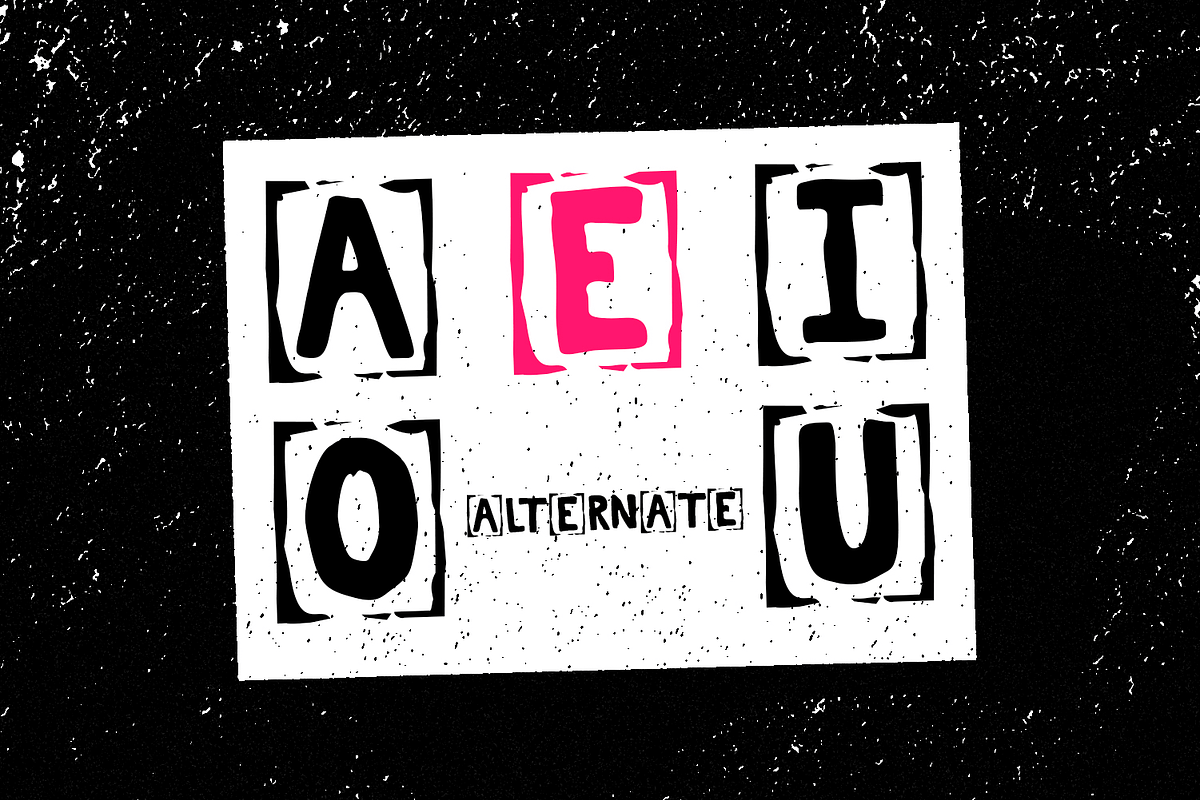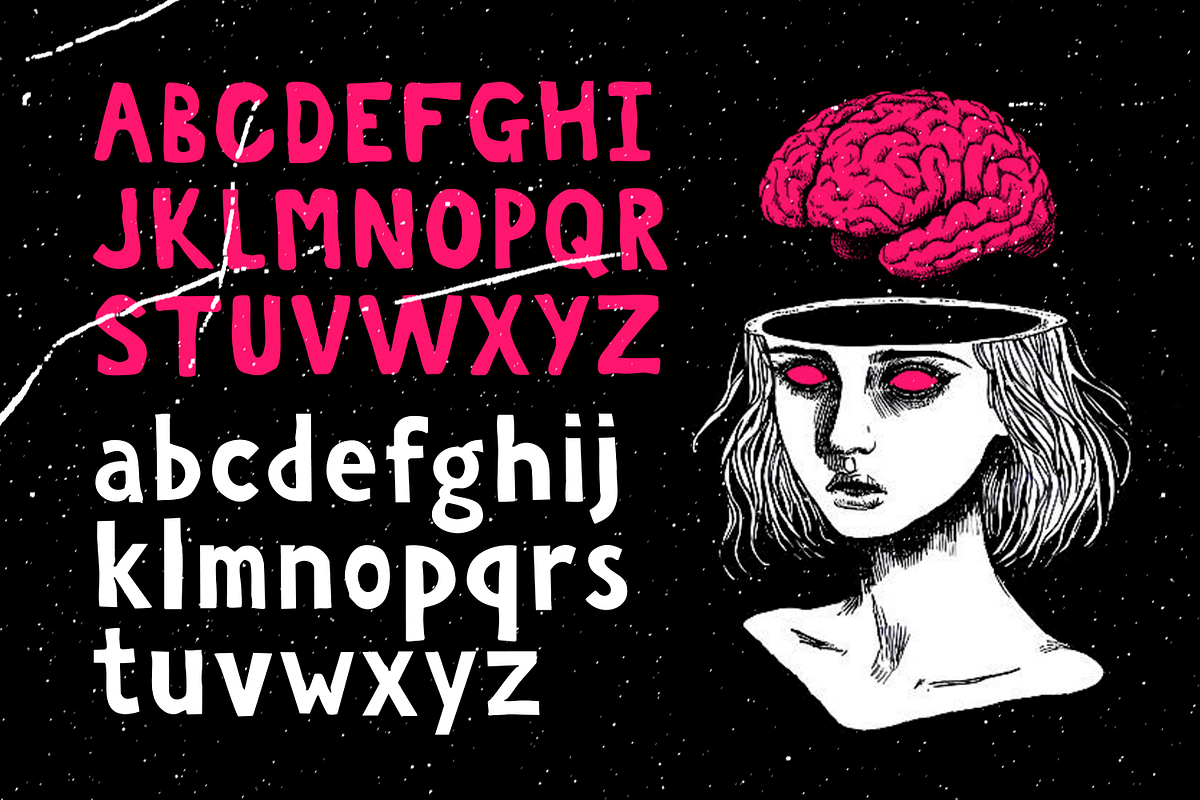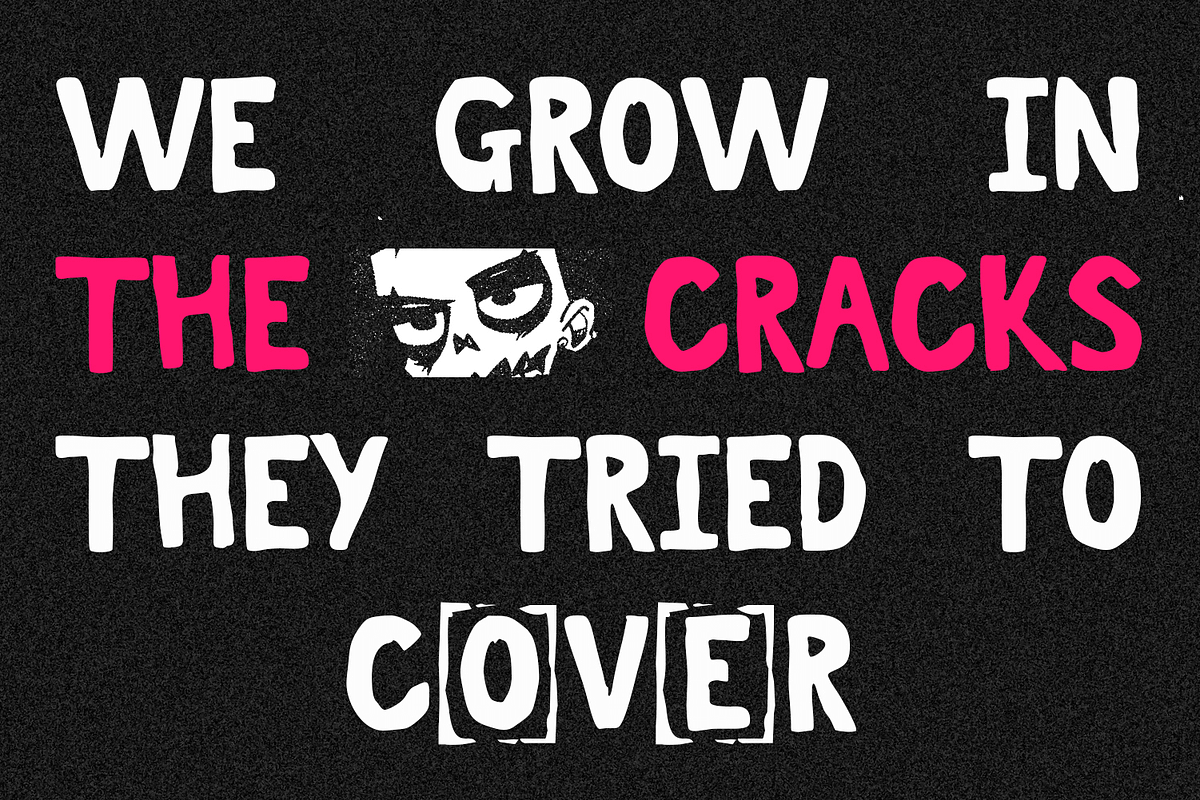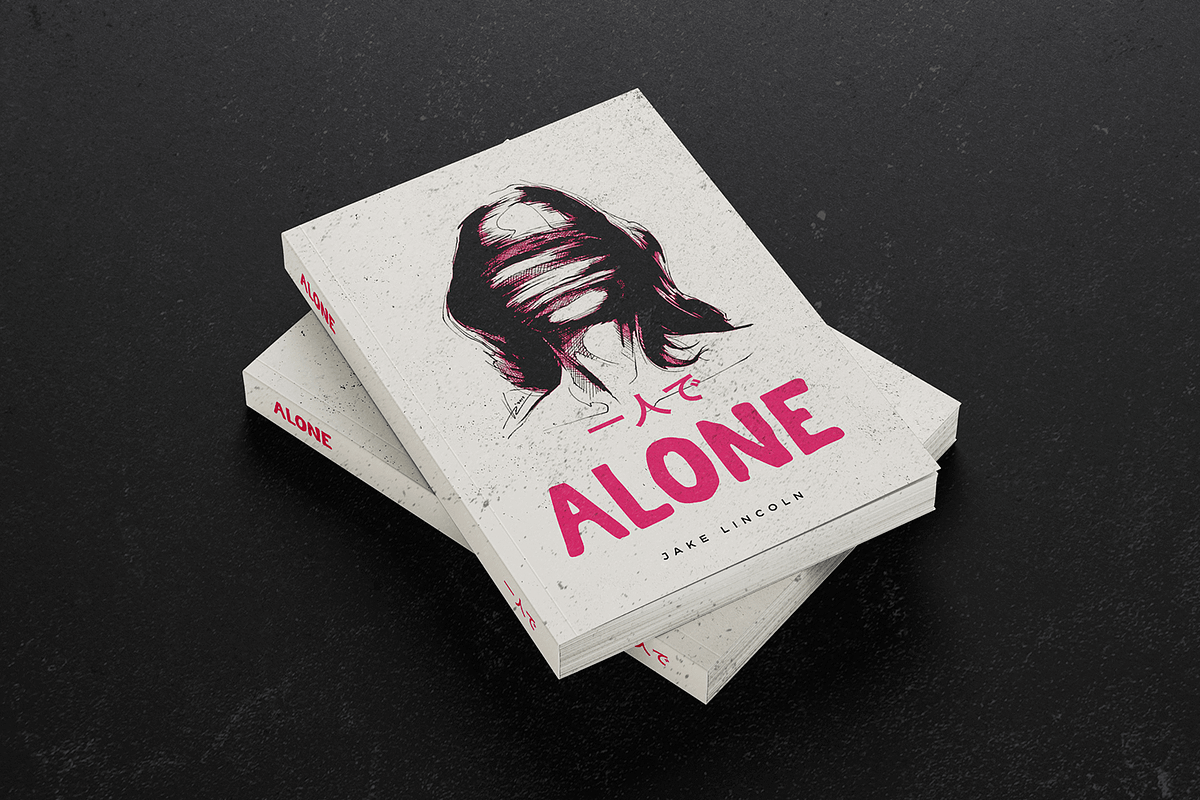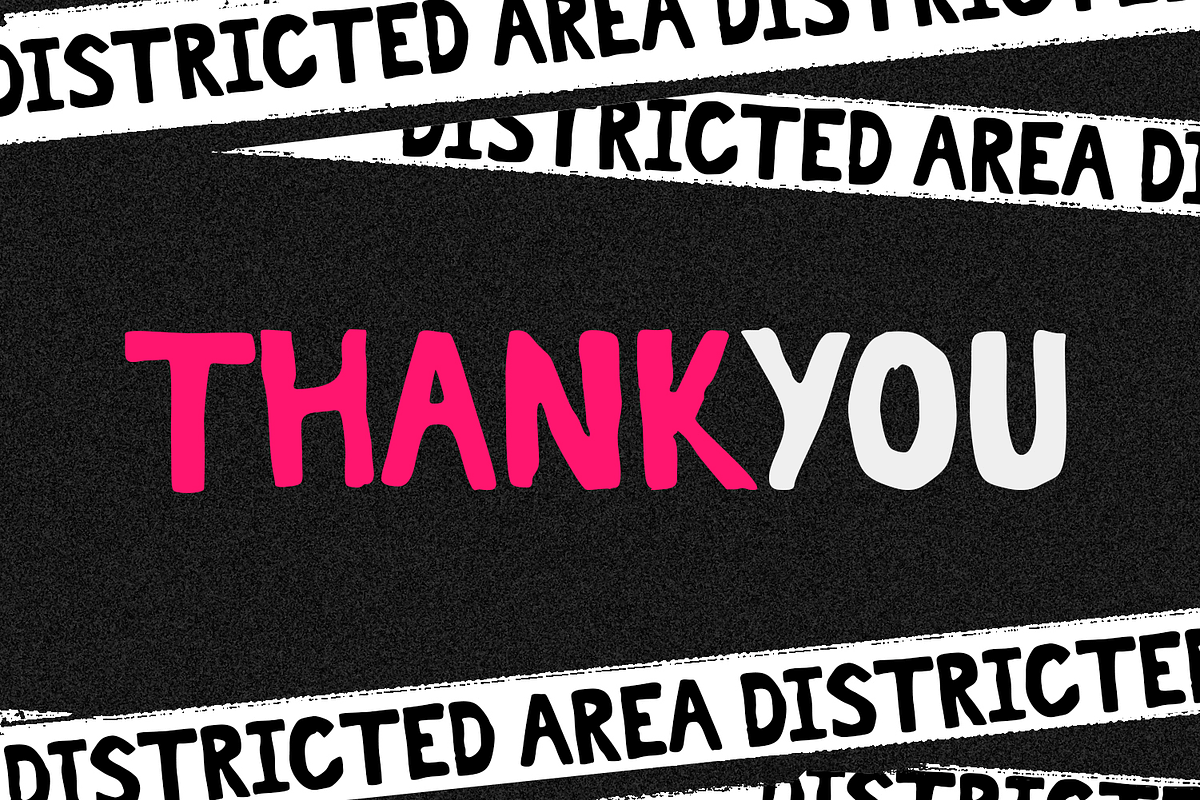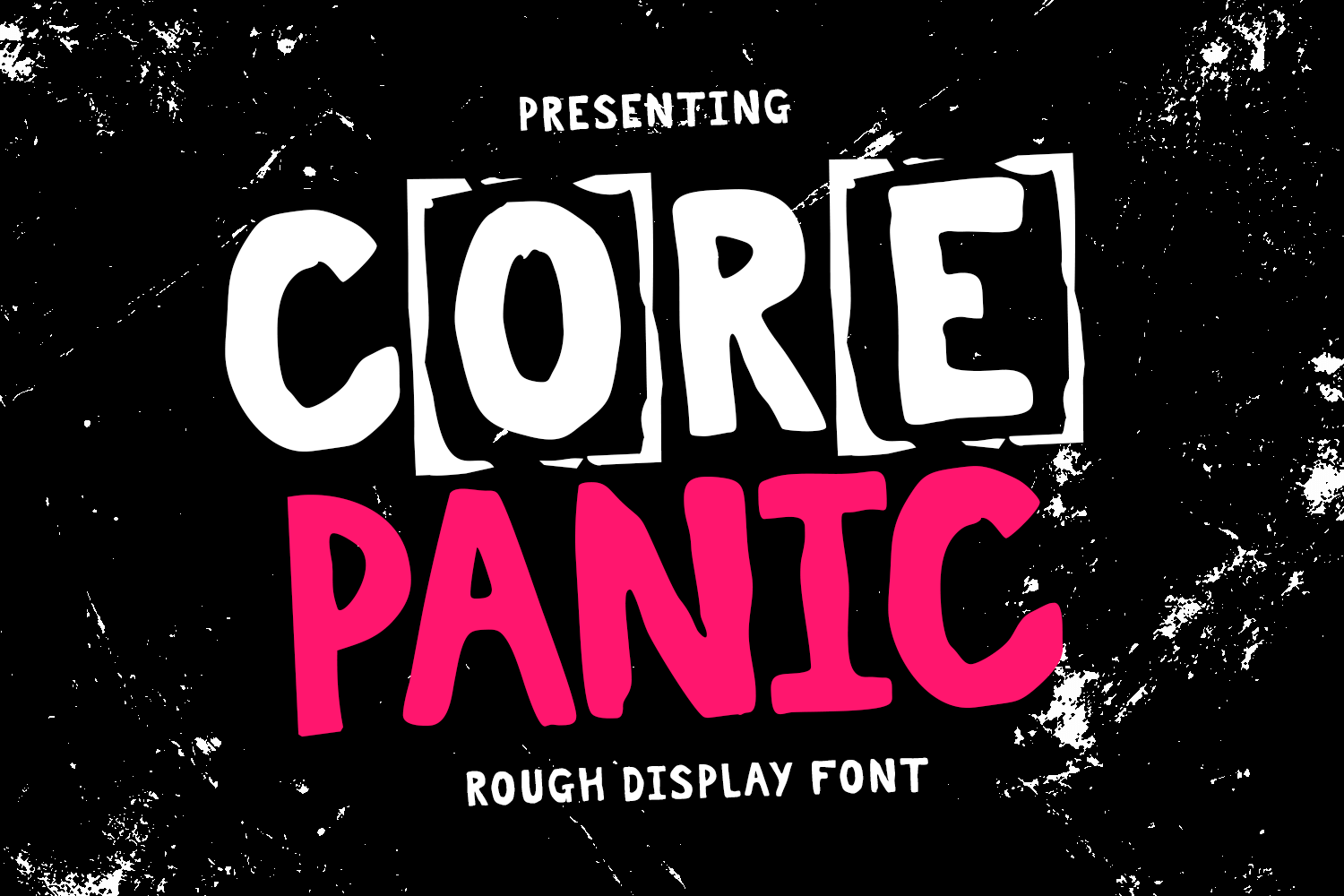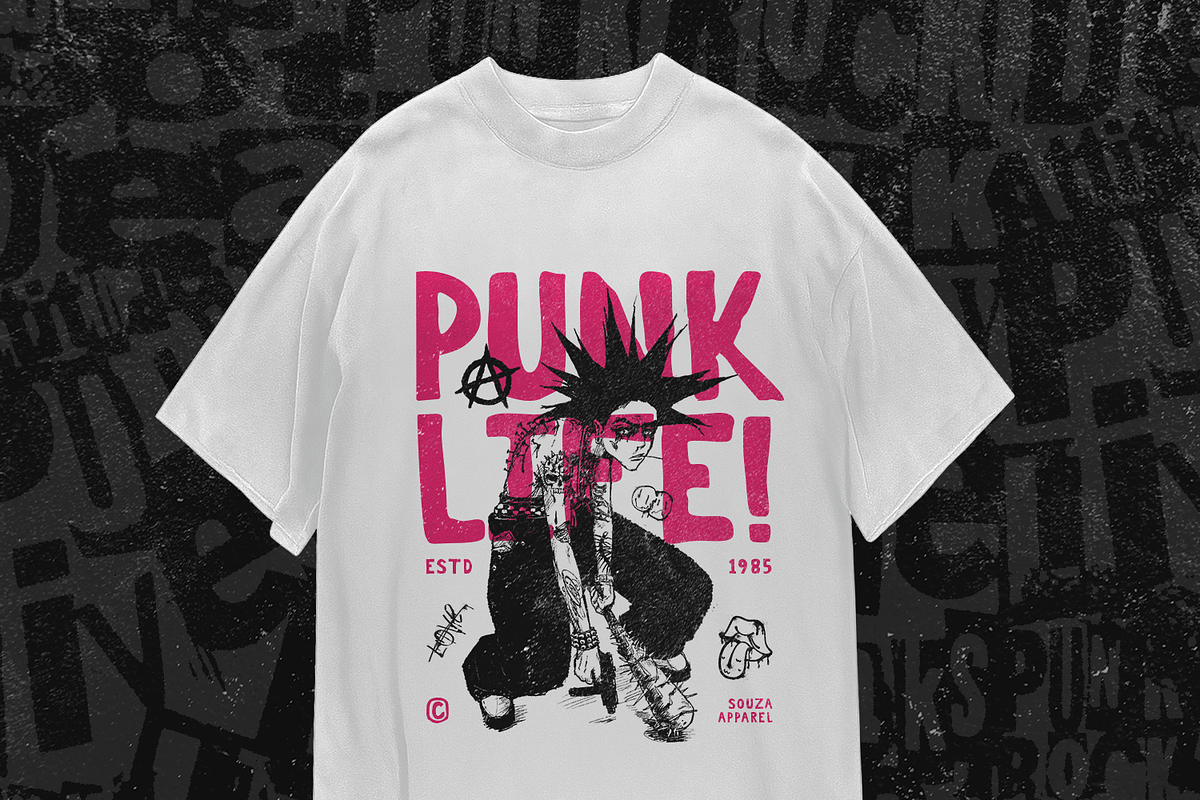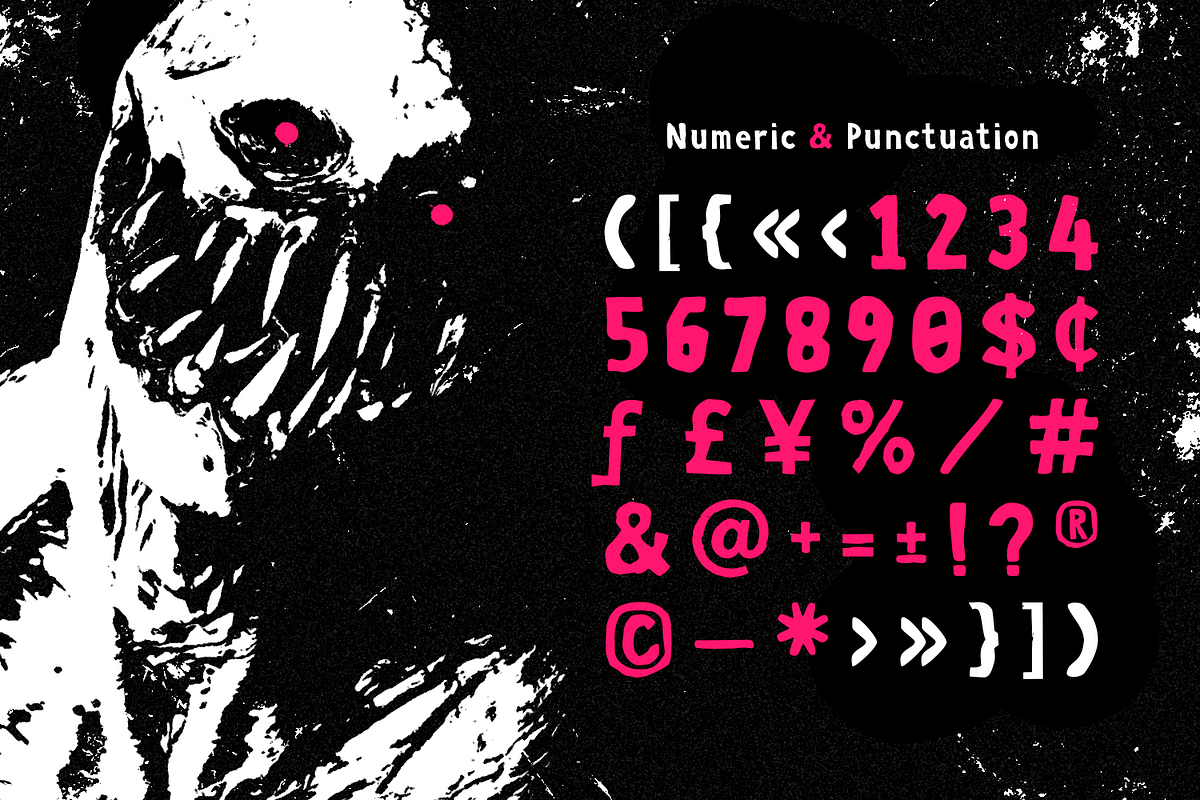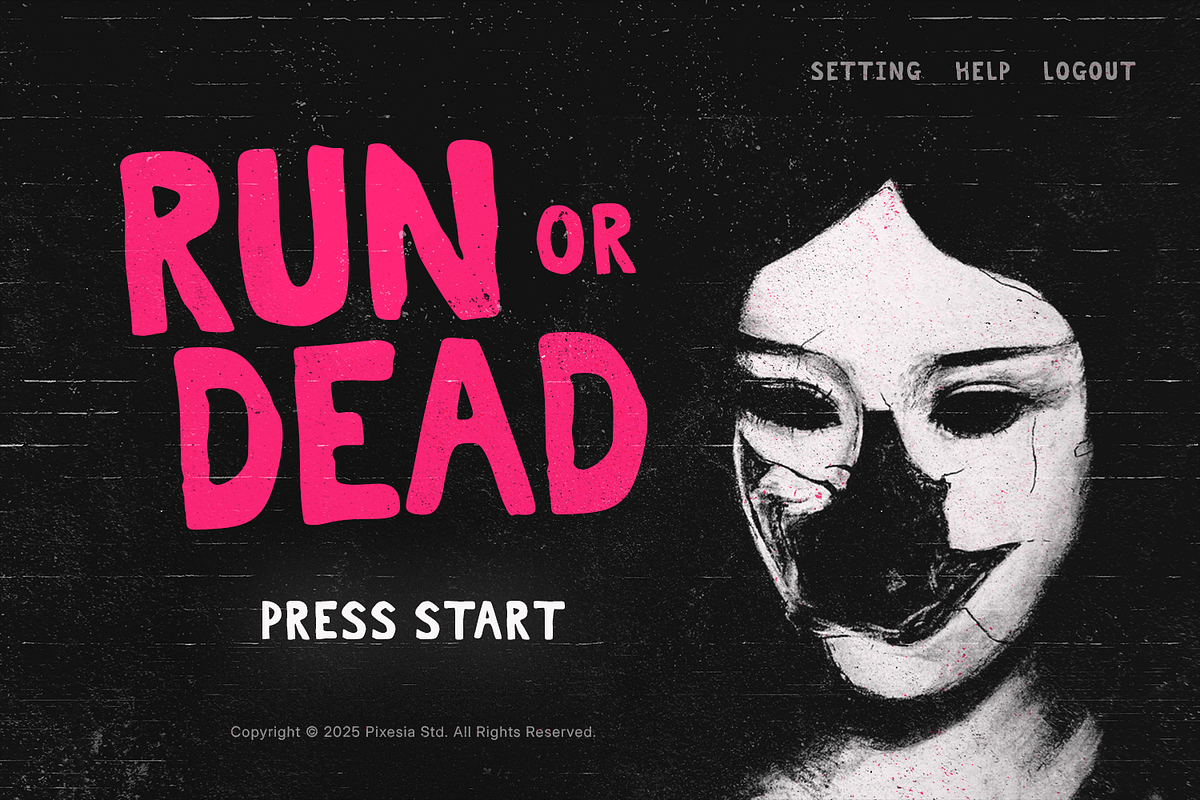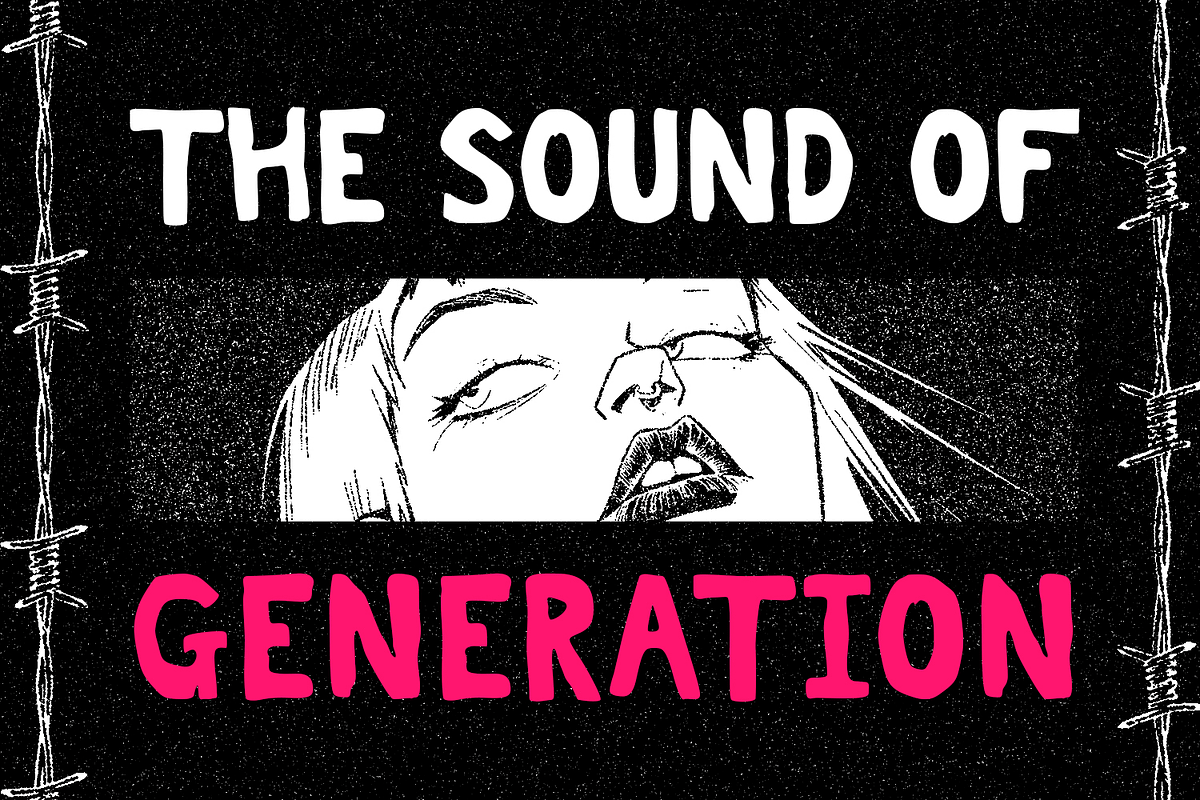
Core Panic - Rough Display Font
Introducing Core Panic - Rough Display Font
Core Panic is a bold rough display font built to express chaos, rebellion, and raw emotion. With distorted letterforms, uneven edges, and handcrafted imperfections, this typeface captures the aesthetic of underground culture, punk energy, and experimental graphic design. Its unique visual rhythm creates powerful impact in every word.
Perfect for posters, album covers, streetwear branding, zines, logos, and modern editorial layouts, Core Panic brings an edgy, unpredictable vibe to any creative project. Whether you're designing for music, fashion, or alternative media, this font delivers a strong visual identity that feels loud, fearless, and authentic.